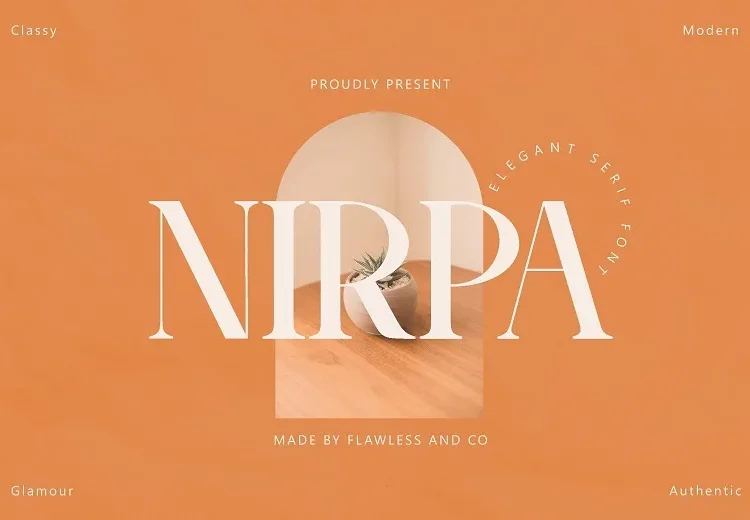
Nirpa Font
Nirpa Font is a sophisticated, modern serif typeface with a fresh, bohemian style. Perfect for branding, business logos, magazines, and a variety of other uses, Nirpa brings a contemporary, yet timeless elegance to your designs. Its unique design, with multilingual support, ensures versatility for projects aimed at diverse audiences, making it an ideal choice for global branding and creative works.
Whether you’re creating logos, working on Canva or Procreate projects, or designing for print and digital media, Nirpa Font adds a polished touch that elevates your designs. Its clean lines and modern feel make it a great fit for any project that demands both style and functionality.